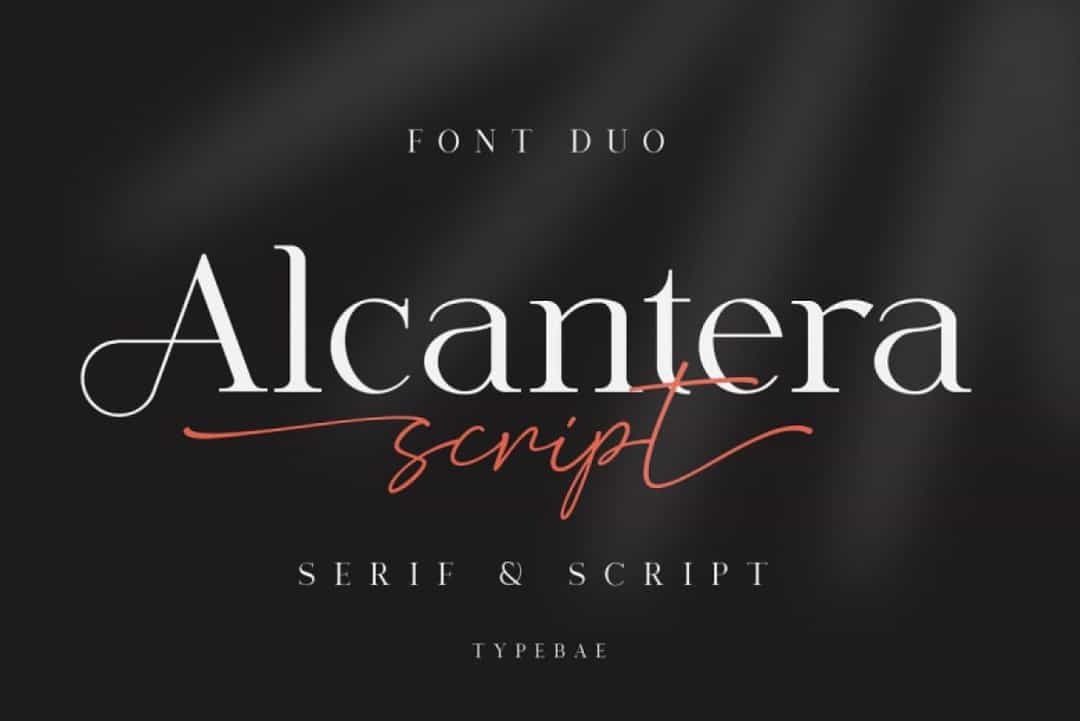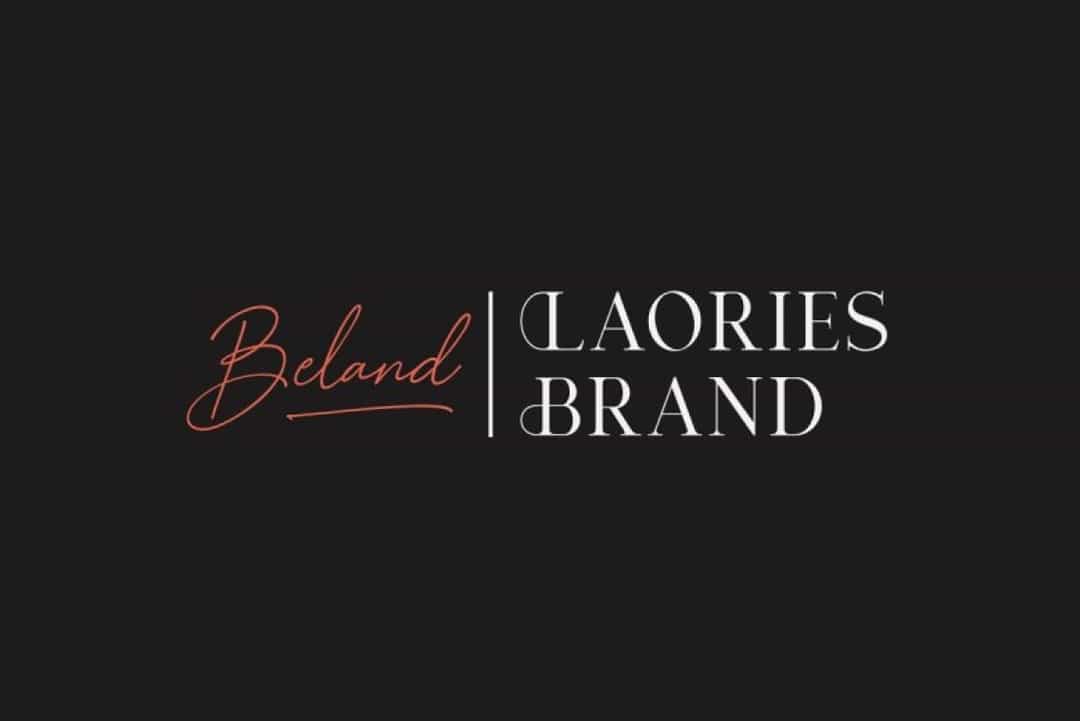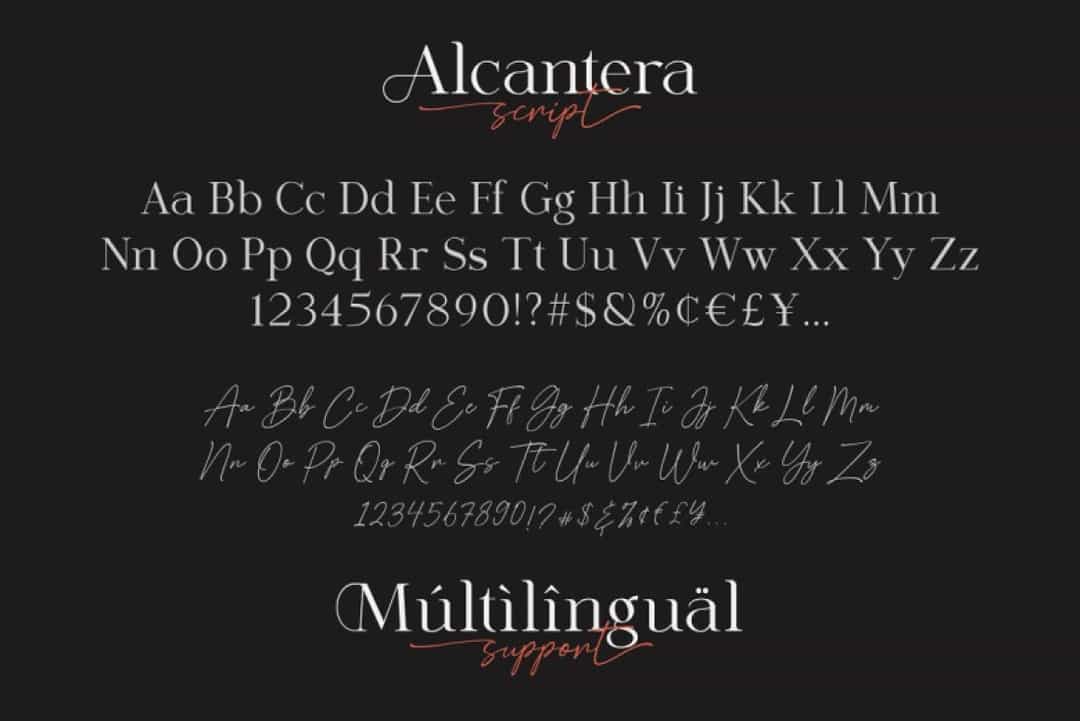
Alcantera Font Duo is an exquisite collection of sophisticated serif and script fonts designed to stand out and complement each other in an eye-catching, contemporary aesthetic. Use Alcantera Font Duo for beautiful wedding invitations, stationery projects, posts on social networks, greeting cards and much more.